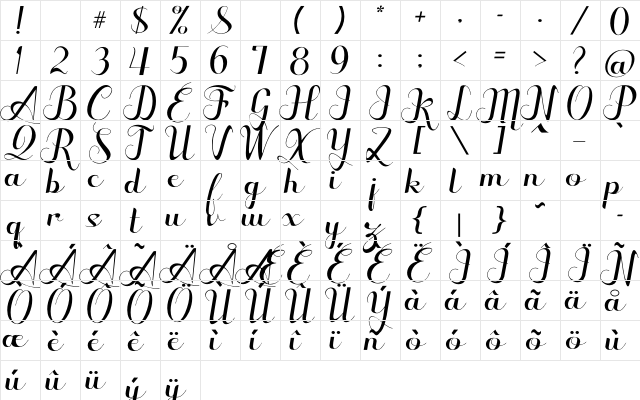
Seulanga Regular Font Preview
Seulanga Regular
Seulanga Regular Font Details
Design Context for Seulanga Typeface
Seulanga is a composed and adaptable typeface that performs quietly and consistently across a wide range of design contexts.